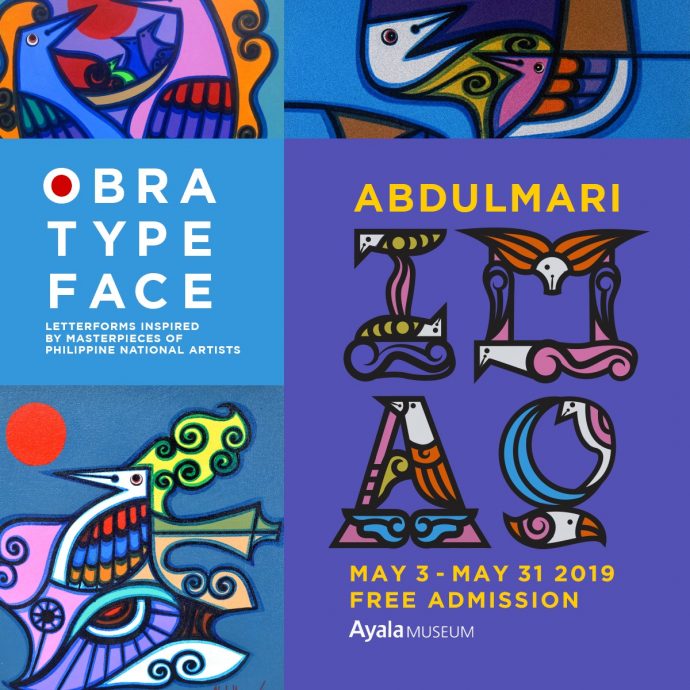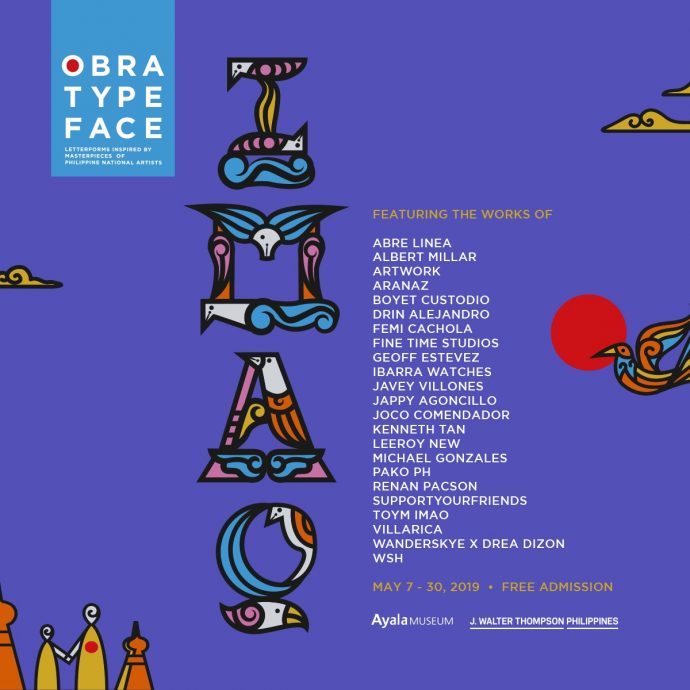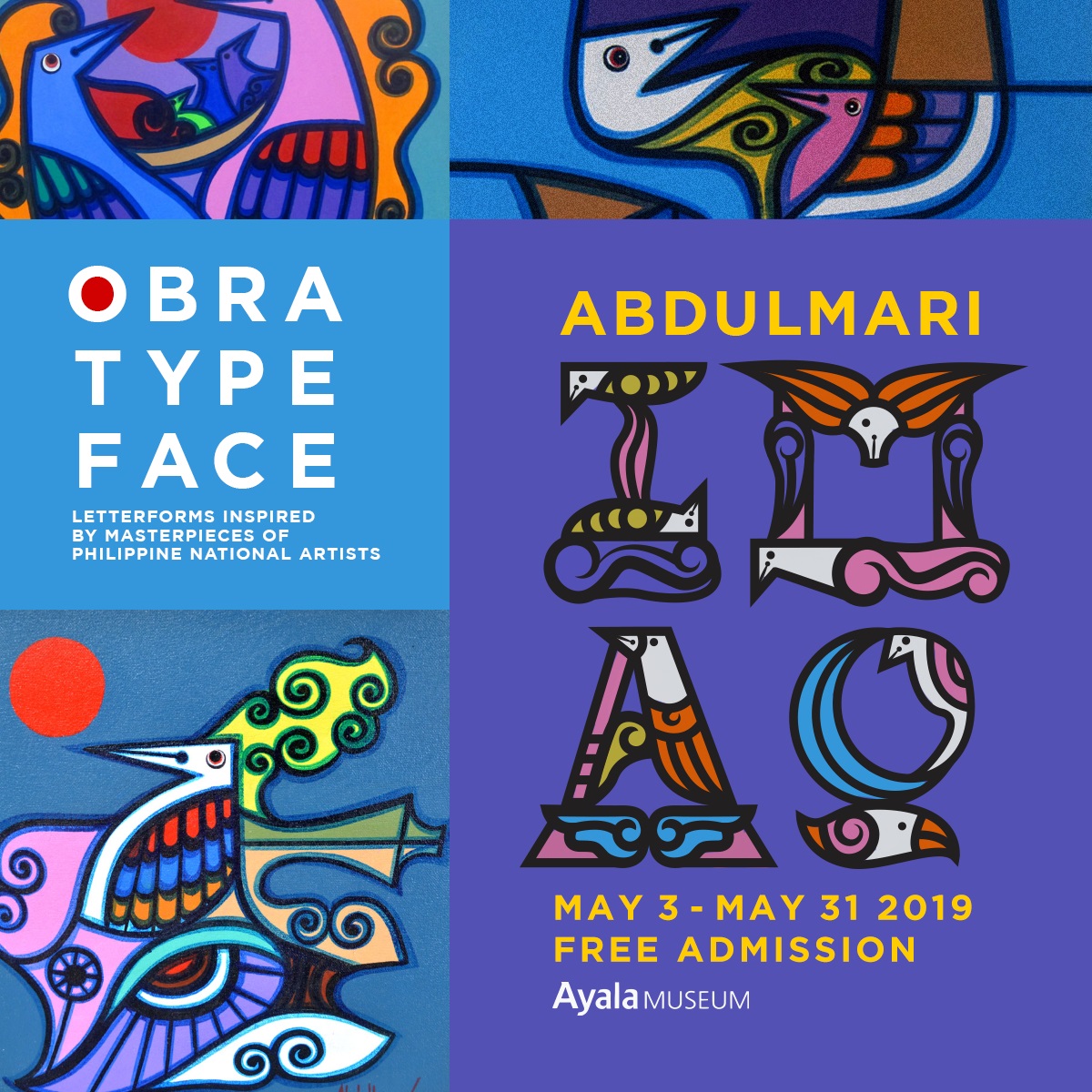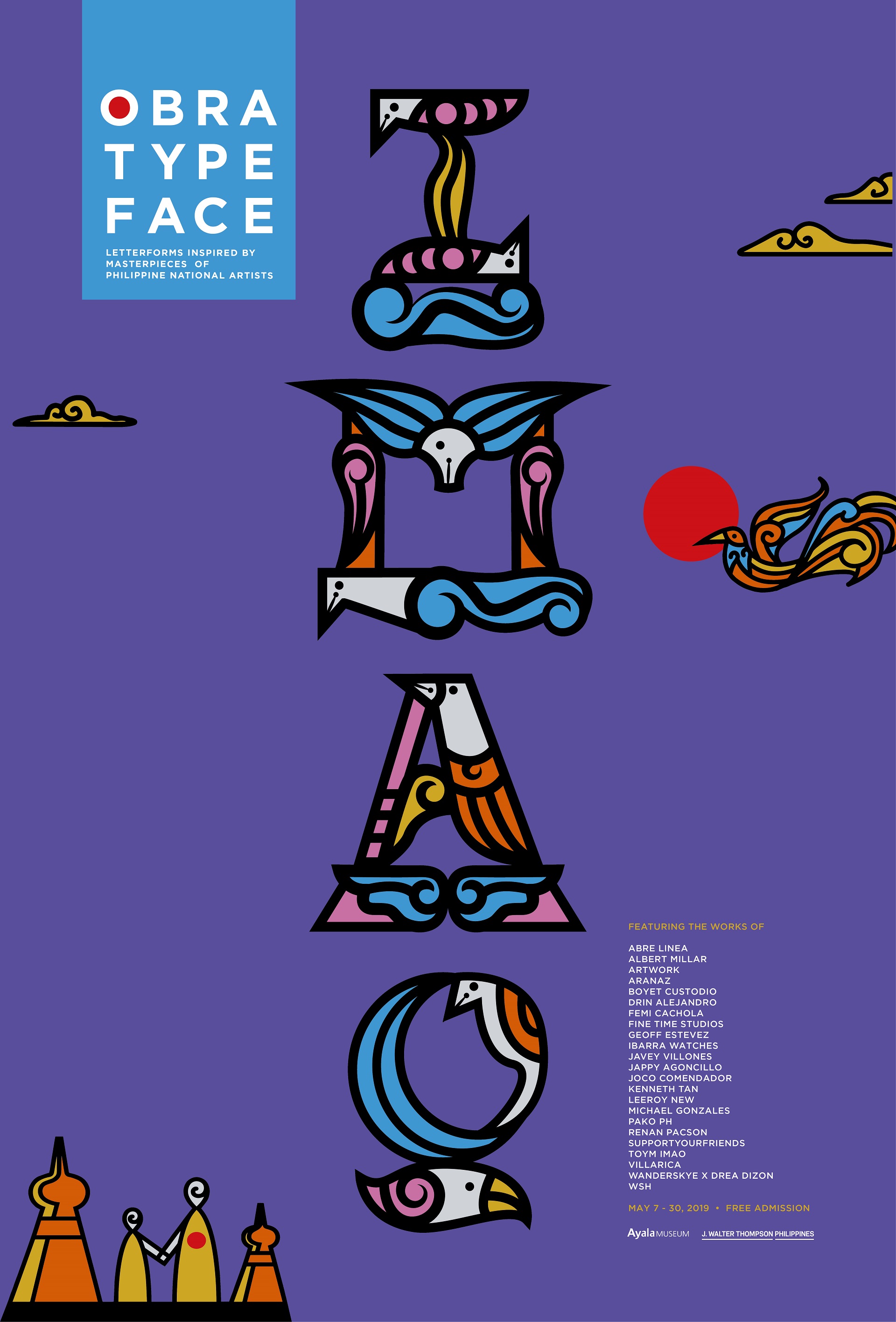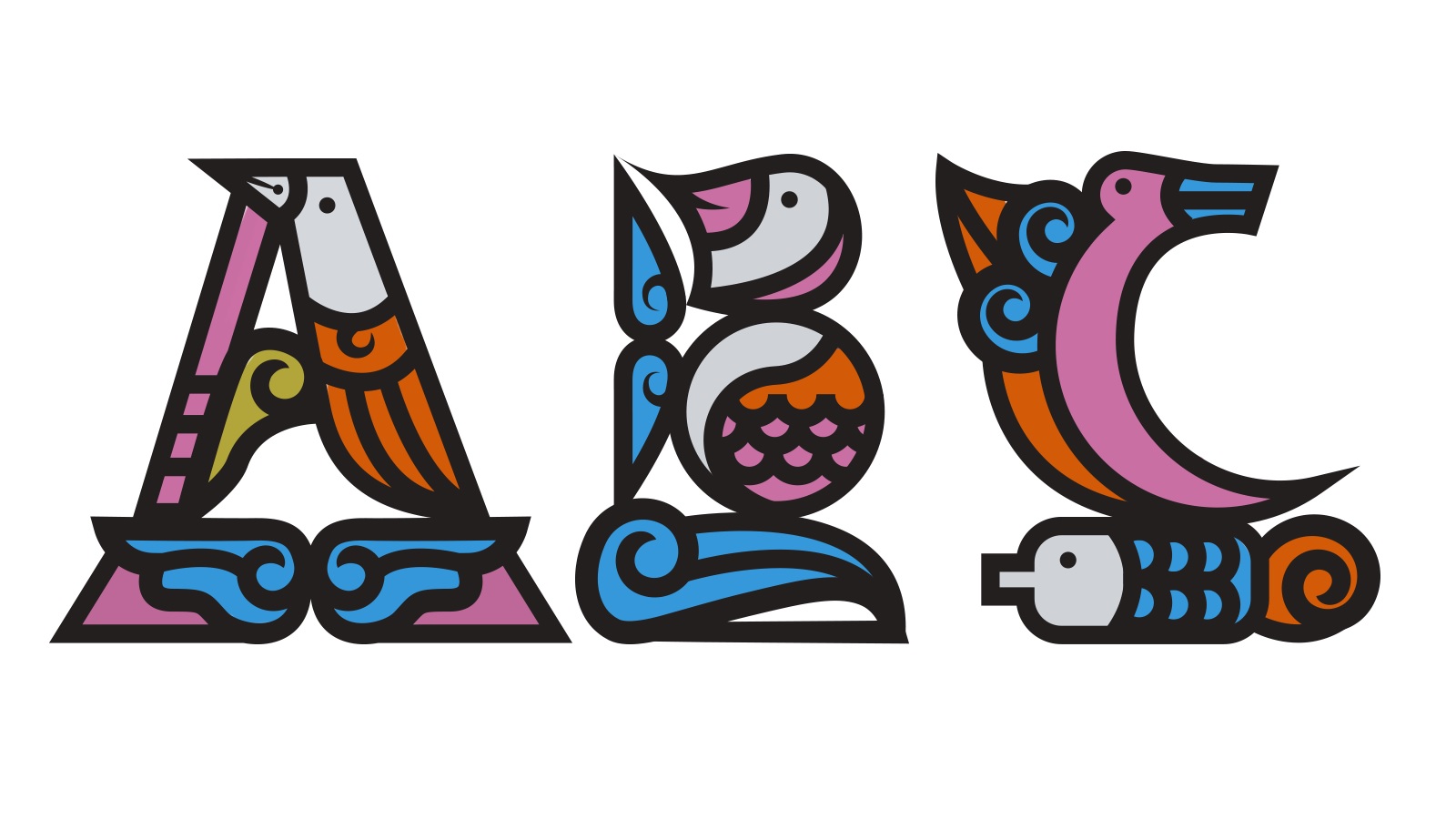
The Philippines abound with art. The most known types of art are the ethnographic and tribal ones. But if you go out on the streets and ask anyone about any obra masters, they will struggle to remember at least one of them. Luckily, J. Walter Thomson Philippines and Ayala Museum came together to properly introduce this wonderful work of art that shrouds the country in a colorful robe.
Introducing the “Obra Typeface,” an initiative that uses its nice contours to help Filipinos discover and further explore this type of art, while also uncovering more information about the actual artists that are behind it.
The team working on the project first crafted a display type, known as Imao Obra Typeface, or Imao.otf, which is inspired by the works of national artist Abdulmari Asia Imao. The artist, a native Sulu, is a sculptor, painter, photographer, ceramist, documentary filmmaker, cultural researcher, writer, and articulator of Philippine Muslim art and culture. It comes as no surprise that his trademark icons, such as the indigenous ukkil, sarimanok and naga motifs, have been within Filipinos’ creative genetics since forever. But now, his highly-colored pattern was integrated within the typeface, creating a rich tapestry of letters and images.
Through this project, the Manila-based agency aims to make people remember with ease who the master behind this type of artwork is. But this is only the beginning, says the agency. “Our goal is to partner with more National Artists, and through our typefaces, we get to celebrate their lives, works and names every day,” explains Brandie Tan, Executive Creative Director of J. Walter Thompson Philippines, who hopes to encourage people to discover the Filipino artists through a different kind of art.
The project was launched on May 6, 2019, with an exhibition dedicated to the Imao Obra Typeface at the Ayala Museum. During the exhibition, visitors were invited to admire a special showcase of everyday items designed using the new font. A few artists were asked to translate the typeface into merchandise items, such as jackets, hats, shoes, bags, and even home items like pots, lamps, spray can centerpieces, and also a chair. The project collaborators include Abre Linea, Aranaz, Artwork, Boyet Custodio, Drin Alejandro, Femi Cachola, Fine Time Studios, Geoff Estevez, Jappy Agoncillo, Joco Comendador, Kenneth Tan, Pako.ph, Renan Pacson, Support Your Friends, Wanderskye and Drea Dizon, Leeroy New, Ibarra Watches, and WSH.
“What I find clever about transforming artworks into a typeface is that people will now be able to use them, make it their own,” said Mariles Gustilo, director of Ayala Museum. “And as they tinker with each letter, each design, it will entice them to learn about the artist who inspired it,” he continued.